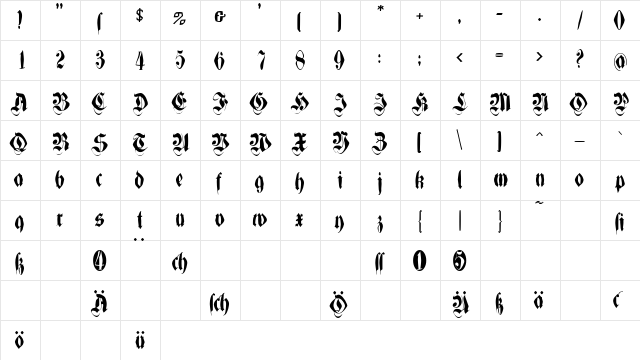
MorbusParcinsonFraxx Regular
Design Context for MorbusParcinsonFraxx Typeface
MorbusParcinsonFraxx is a composed and adaptable typeface that performs quietly and consistently across a wide range of design contexts.